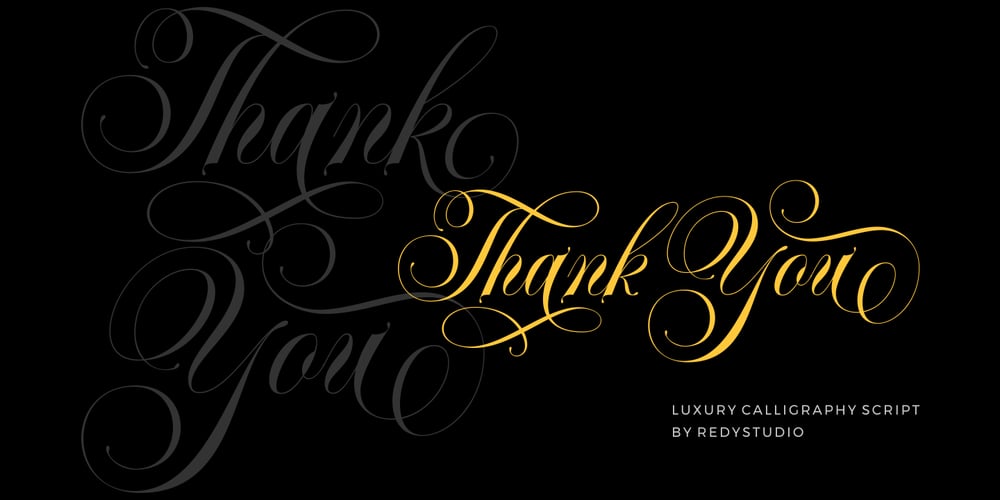
Banda Neira Font Family was designed by Nurul Fajri Redy and published by Redy Studio. Banda Neira contains 1 styles and family package options. Banda Neira Script is a luxury and modern script inspired by hand lettering. It is designed resulting in clean and wavy character, has pretty much alternatives glyphs choice in the pack. It provides beautiful letter essence for any design project including invitations, labels, logo, card, Quote, packaging, headline, poster, magazine and more design concepts. We do really hope you enjoy and get interested towards our offer. We’ll be very happy to answer your questions. Alternatively, you can drop me a message and you can get your service started immediately nfajriredy@gmail.com. ~ Redy Studio